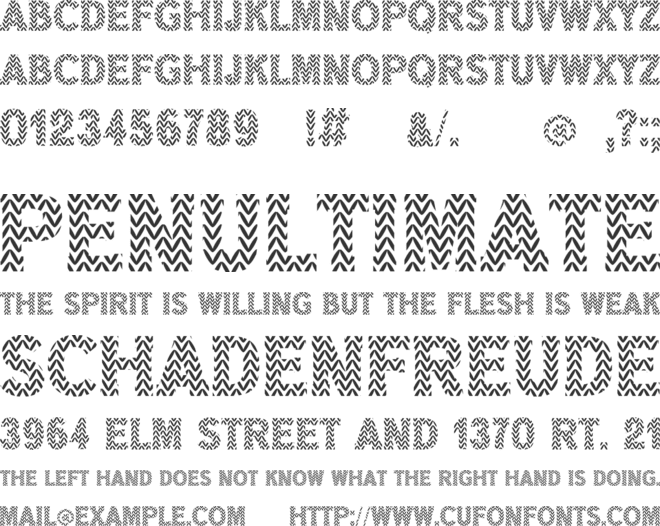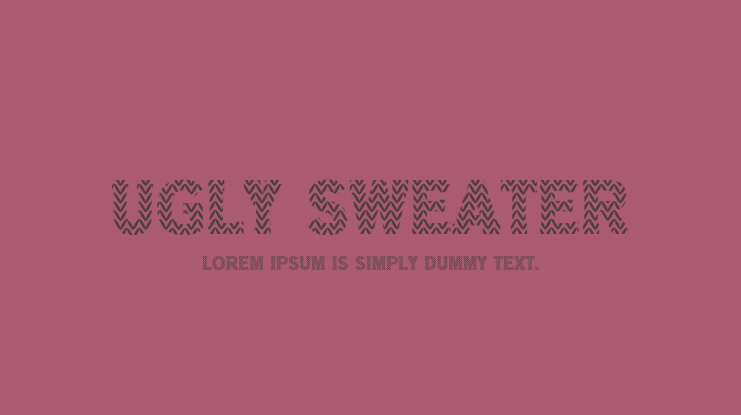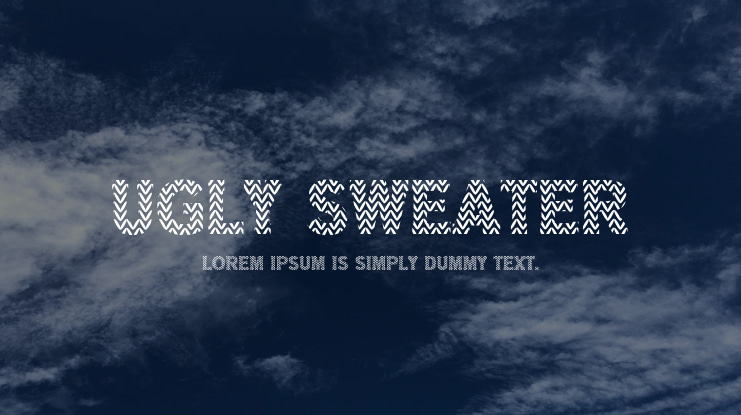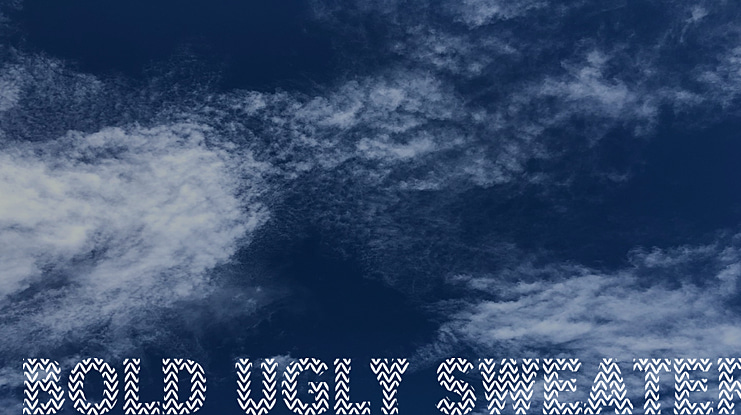
Ugly Sweater Font
Bold Ugly Sweater Font is an incredibly unique and interesting decorative font. Warm and festive, this font is idea for designing each of your holiday creations.